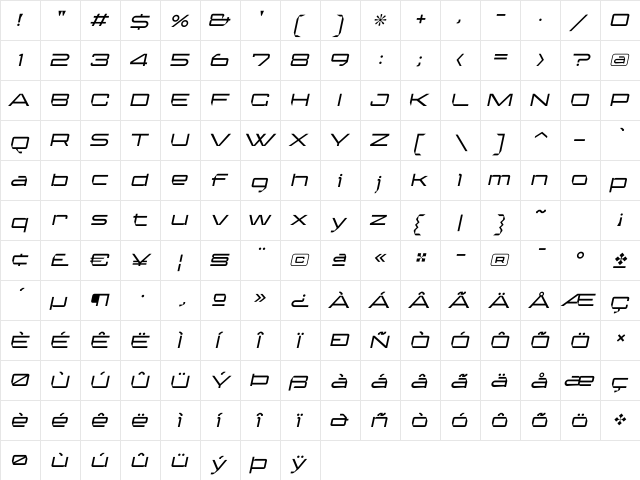
AmbexThin Oblique Regular Font Preview
Design Context for AmbexThin Oblique Typeface
AmbexThin Oblique takes a measured approach to typography — its balanced proportions and neutral character make it a reliable workhorse for both digital and print work. The dynamic lean of this cut emphasises speed and emphasis in any layout. Its slender proportions lend an understated elegance to any composition.